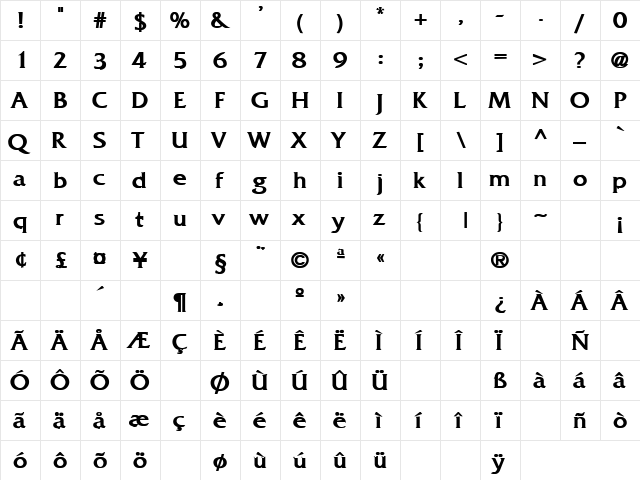
Keep Talking 10 Bold
Design Context for Keep Talking 10 Typeface
Keep Talking 10 takes a measured approach to typography — its balanced proportions and neutral character make it a reliable workhorse for both digital and print work. Its bold stroke weight gives it real presence on the page.